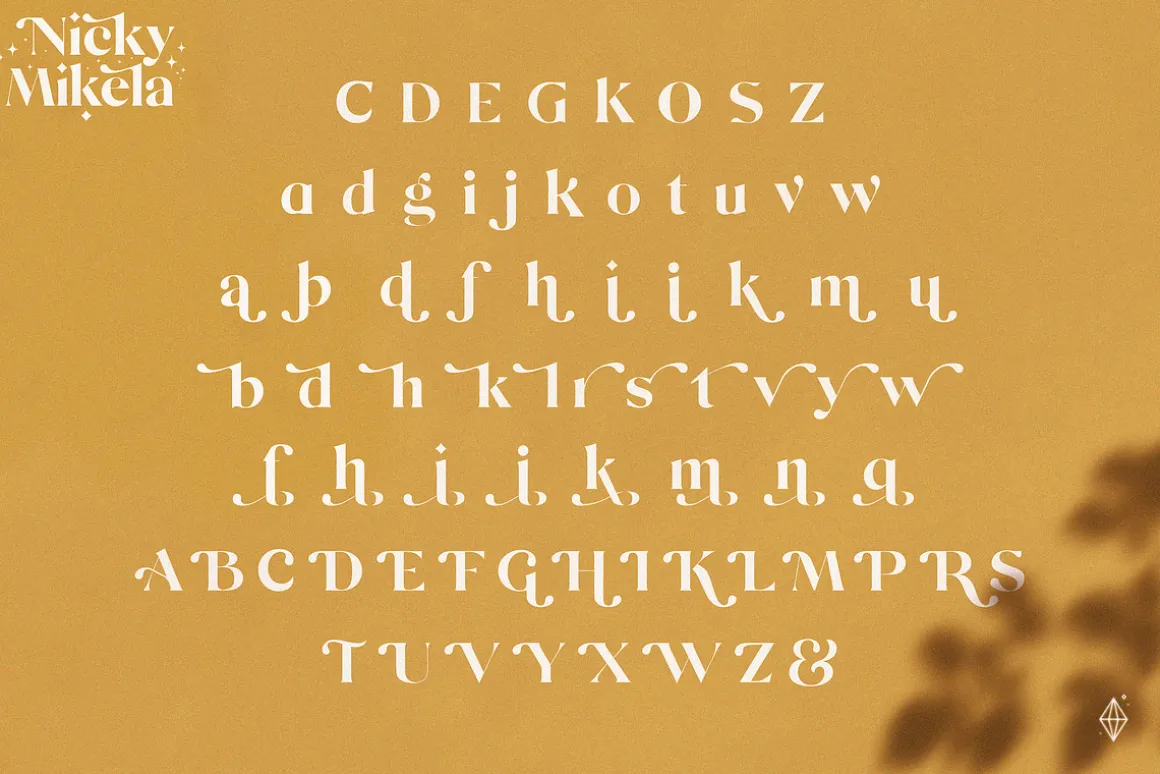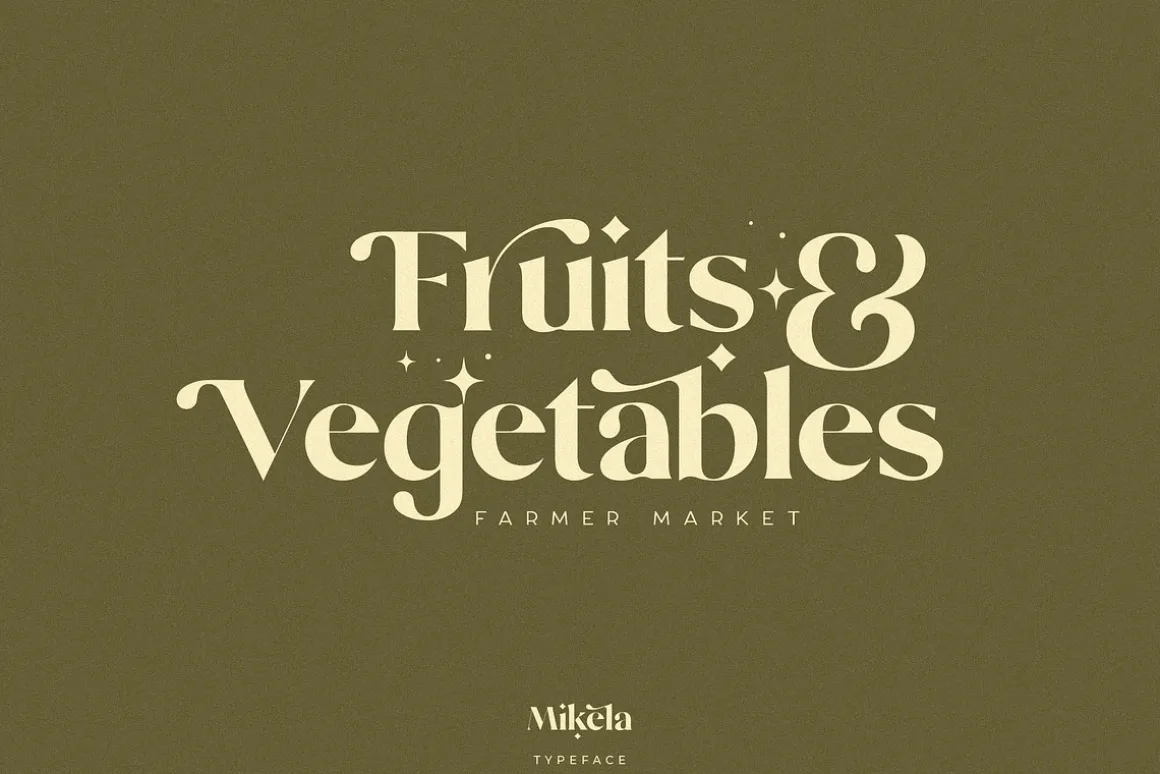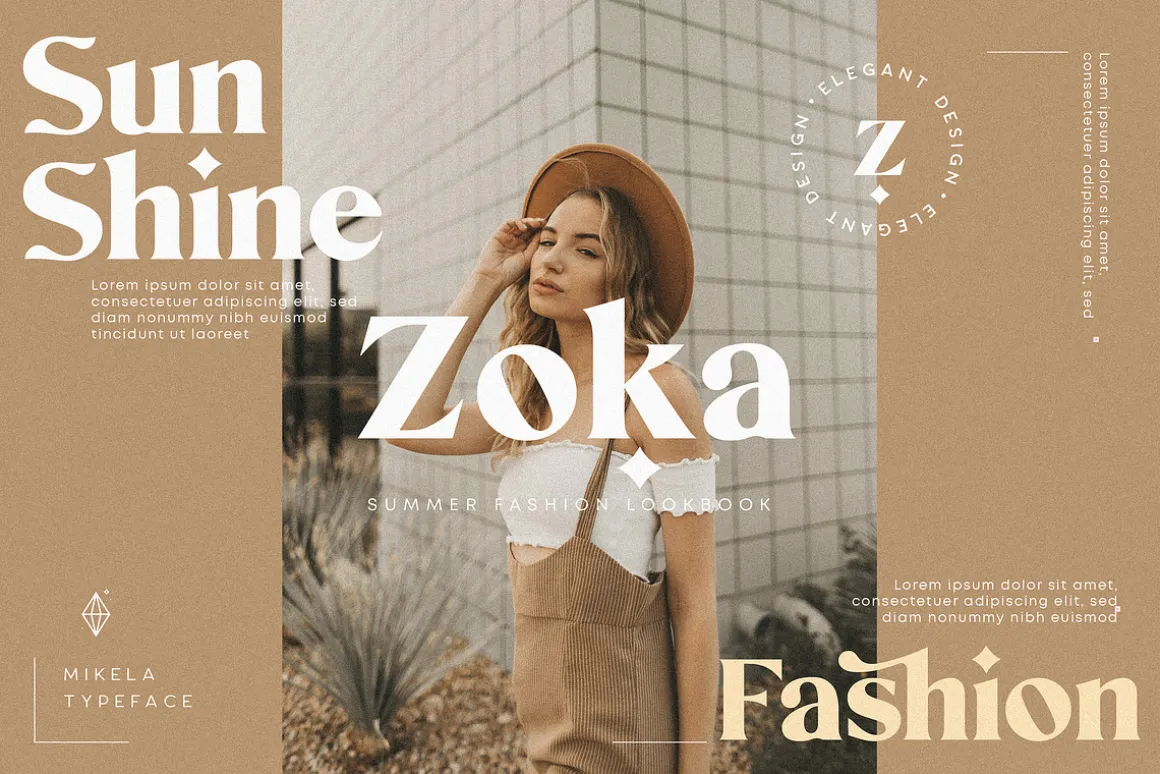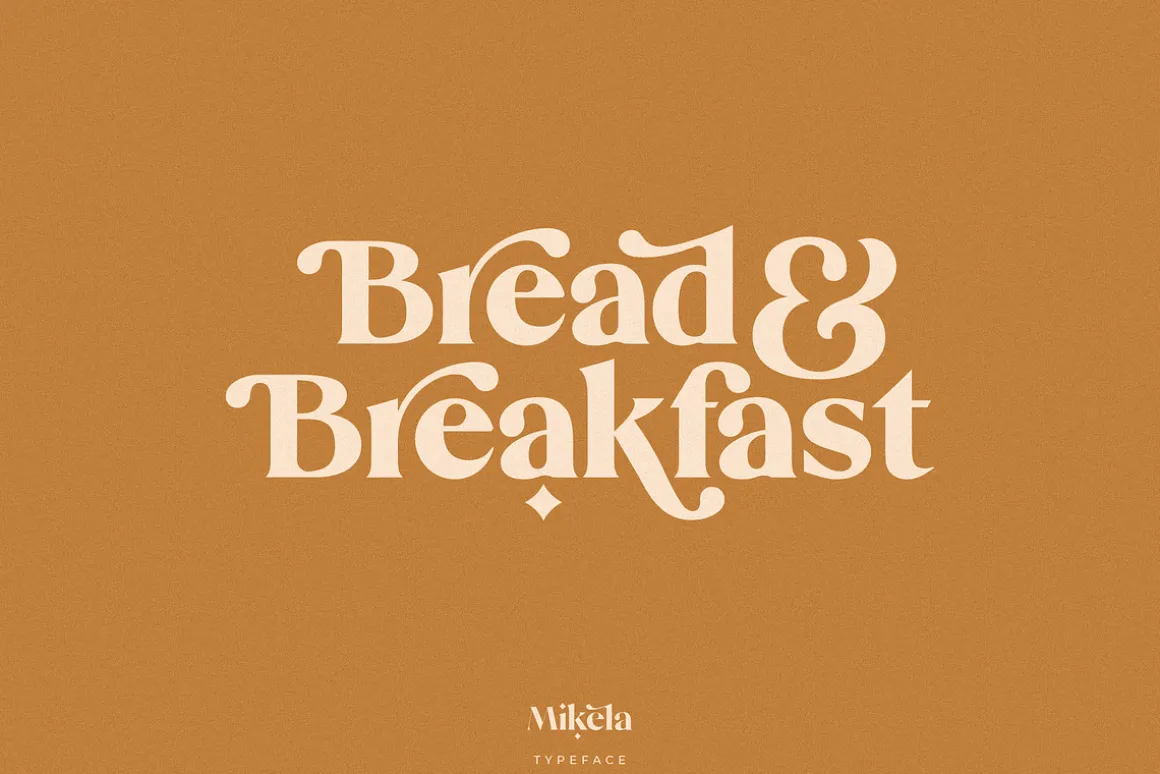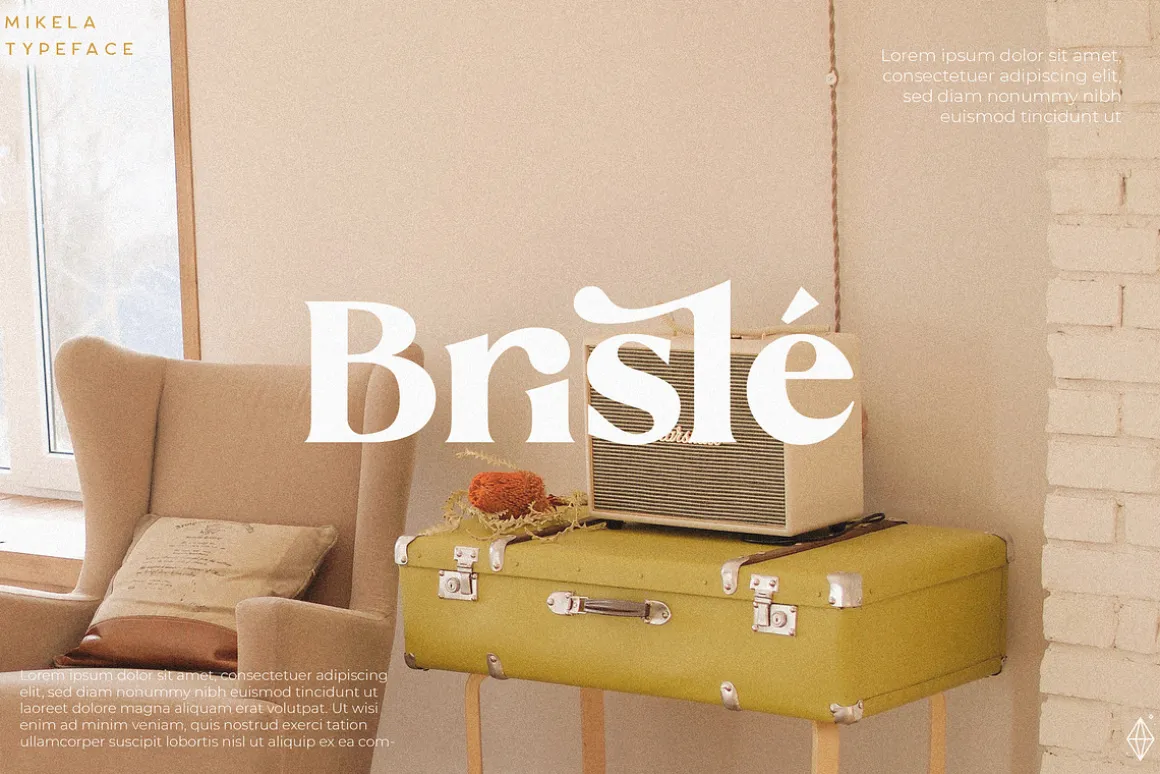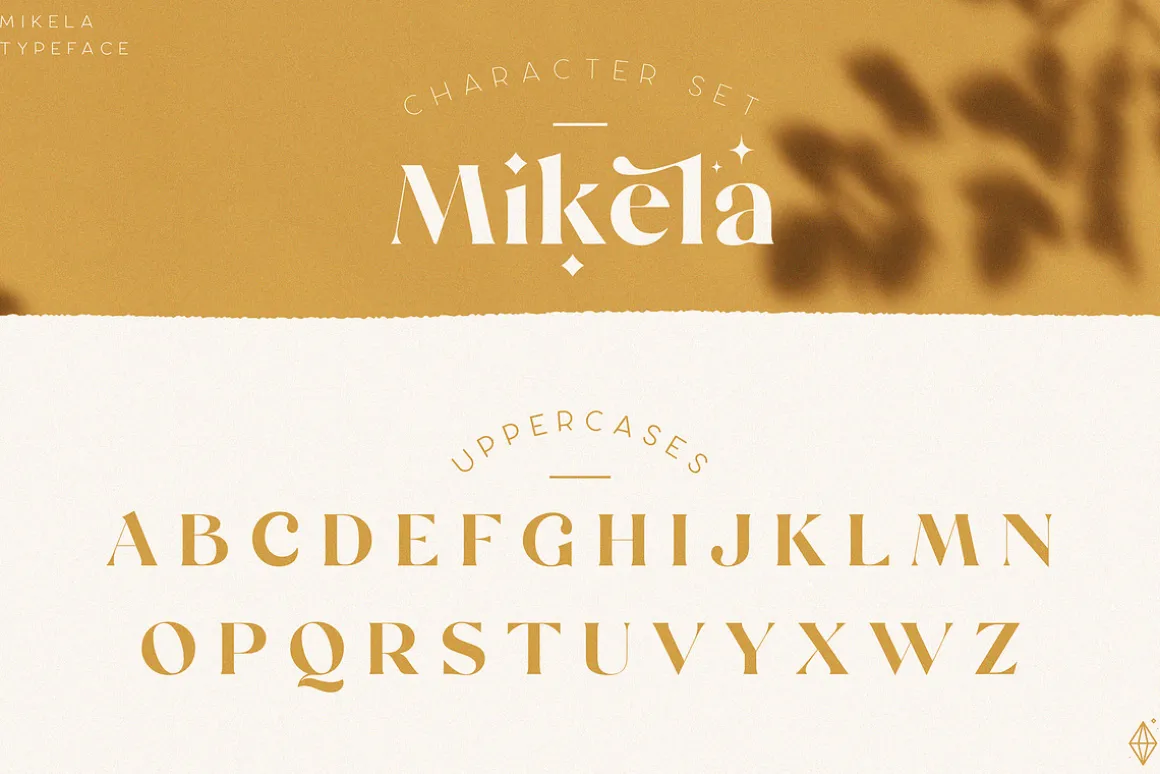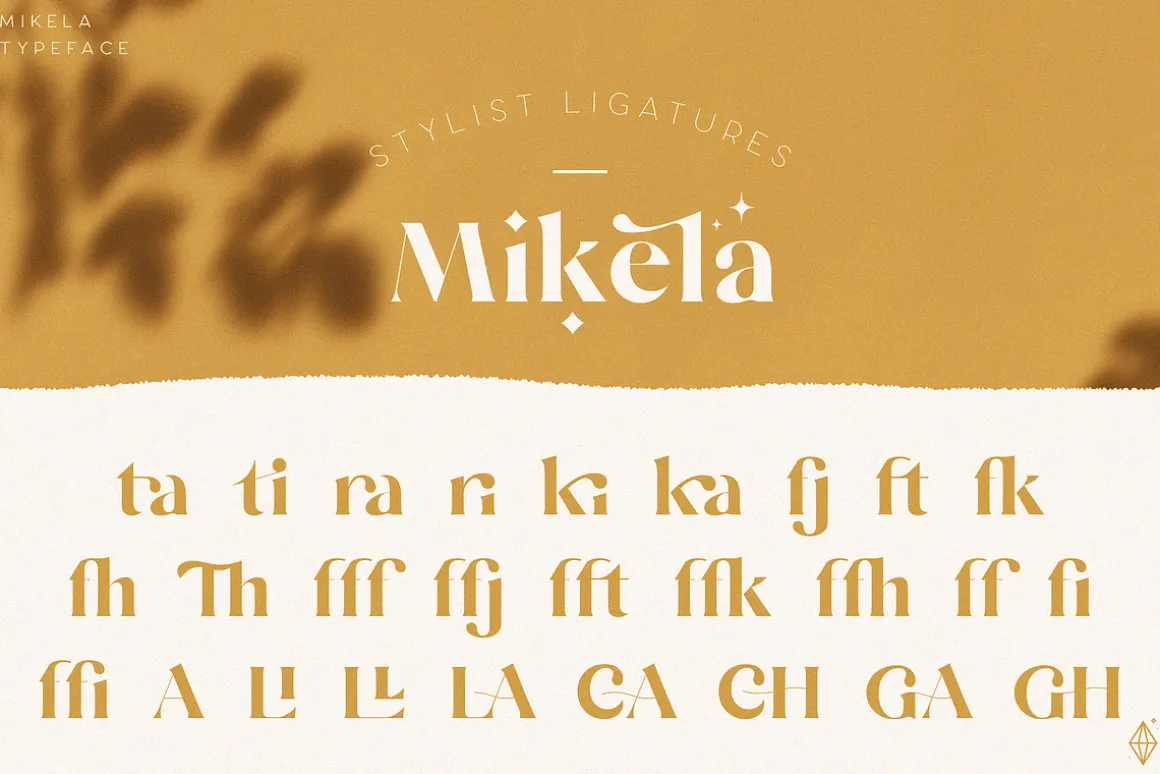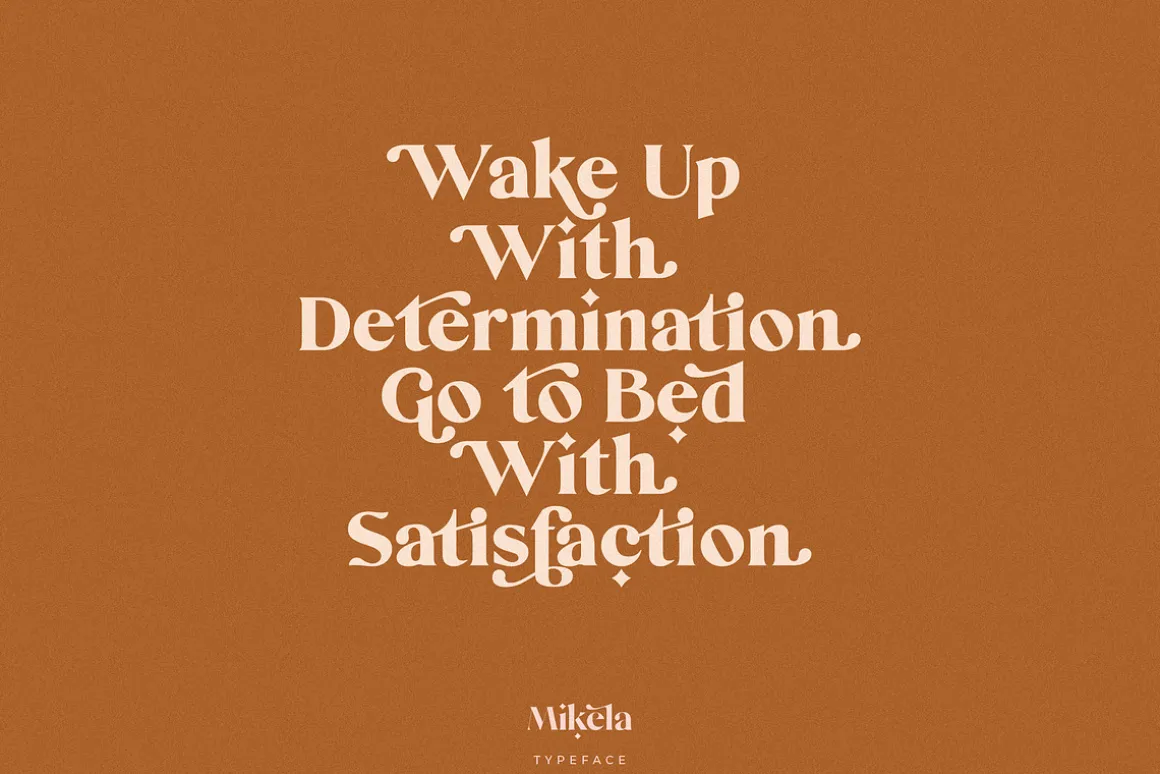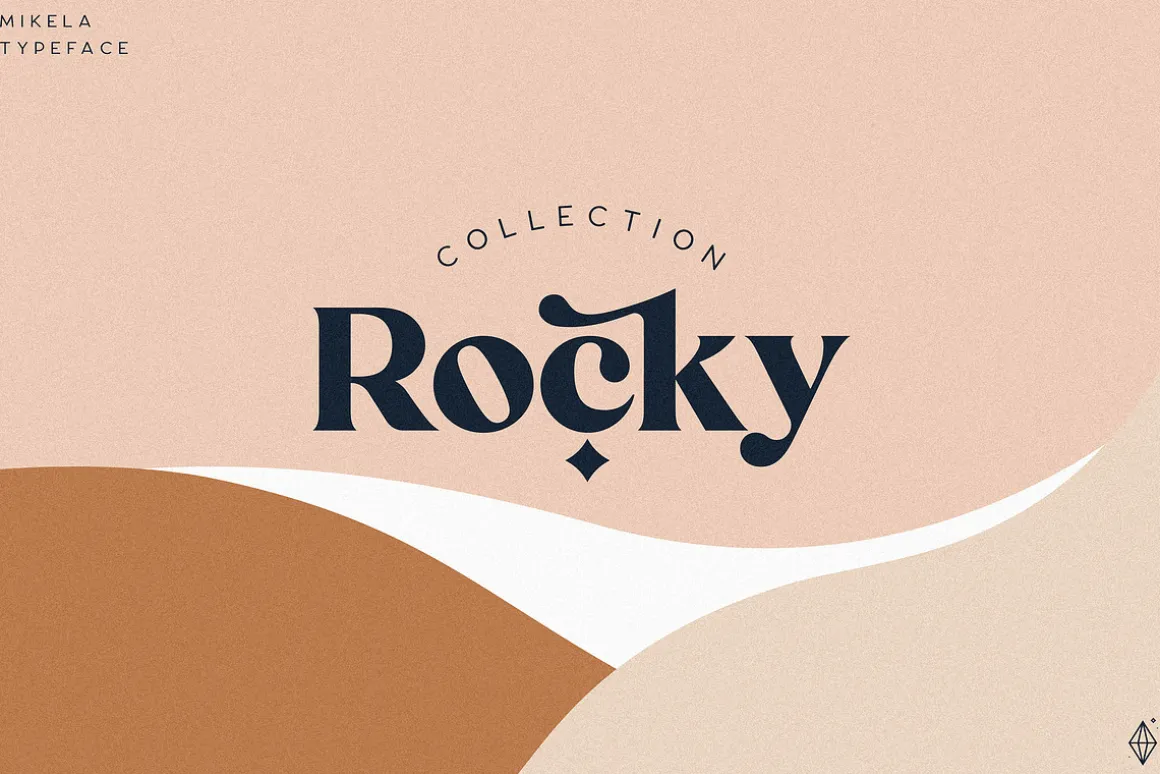
Nicky Mikela is a Bold Minimalist Elegant Modern vintage font with beautiful ligatures, tons of special alternative glyphs, ornament and multilingual support. It’s a very versatile font that works great in large and small sizes. Perfect for branding projects, Logo design, Clothing Branding, product packaging, magazine headers, or simply as a stylish text overlay to any background image.
Lowercase and Uppercase
Stylistic Alternates & Ligatures